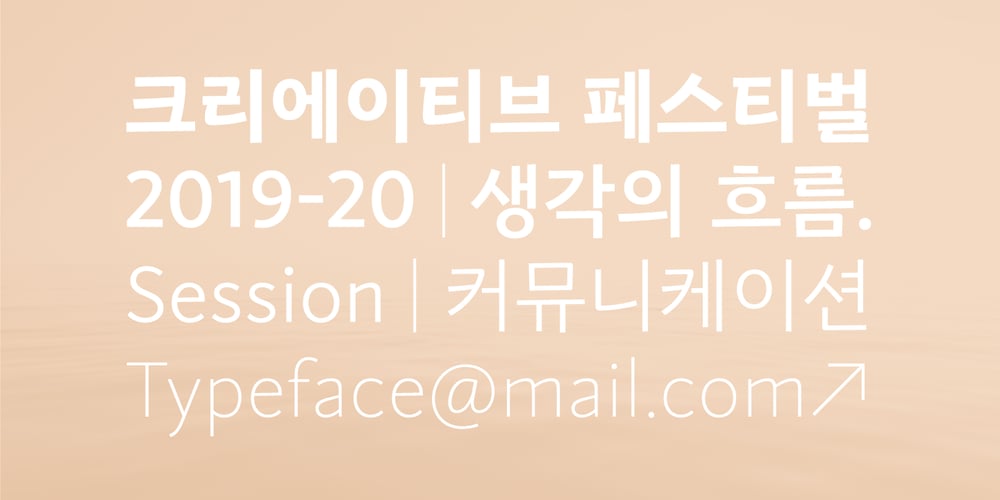
RyuGothic
RyuGothic font
RyuGothic Font Family was designed by StudioJASO and published by StudioJASO. RyuGothic contains 7 styles and family package options. RyuGothic Family is a humanistic interpretation of the Hangul Gothic style. It delivers messages in a soft, calm tone that does not overpower. The narrow counter design of consonants in Hangul and the narrow counter of the Latin lowercase letters are connected to create a sense of structural unity between the two sets of characters. This enables you to read long lines and works well in a variety of media and situations. Each font includes: 2,350 Hangul syllables, the smallest unit for expressing modern Korean; Latin Basic; punctuation; symbols for Korean codepage. Cyrillic, Greek, and Kana alphabets were excluded. The punctuation is designed in the preferred location for Korean typesetting.